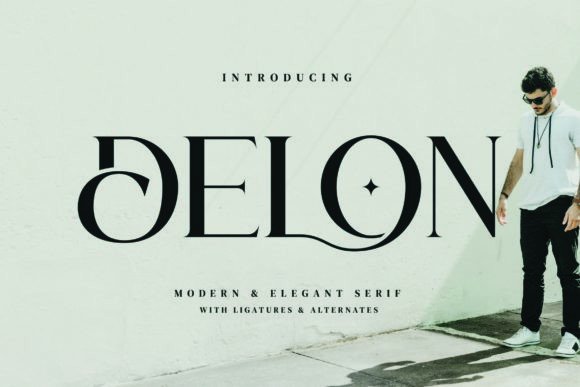
Delon Font: An Elegant Serif for Modern Logo Design & Branding
About the Delon Font
Elevate your designs with Delon Font, a font that combines sophistication with readability. Delon is an elegant serif typeface inspired by the famous minimalist logo, perfect for the purposes of designing templates, brochures, videos, advertising branding, logos and more.
Delon’s elegant, minimalist nature makes it ideal for headlines, logos, and short-form text in branding materials and high-end packaging. Its refined serifs lend a sophisticated touch to invitations, posters, and even short video titles. However, its delicate stroke weight isn’t suited to body text or long paragraphs, and its limited character set might prove insufficient for extensive UI applications.
Pairing Delon effectively requires considering its understated elegance. A clean sans-serif like Open Sans or Lato provides a strong, readable contrast for body copy, while a geometric sans-serif such as Futura would create a modern, cohesive look for a brand identity. For a touch of playfulness, a handwritten script font could be incorporated sparingly.
Delon projects a sophisticated, modern feel, suitable for brands aiming for a refined, high-quality image. Its inherent elegance makes it particularly well-suited to luxury goods, fashion, and design-focused businesses.